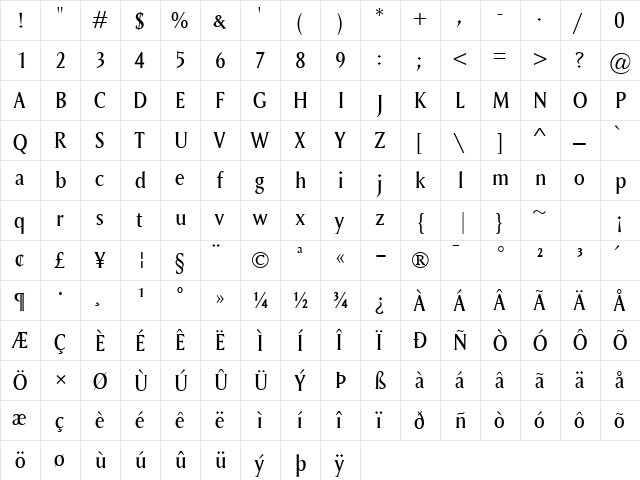
Saga Regular
Design Context for Saga Typeface
Saga is a composed and adaptable typeface that performs quietly and consistently across a wide range of design contexts.
Pro Tip: Pair Saga with a font of contrasting weight or personality to build a more expressive typographic hierarchy.